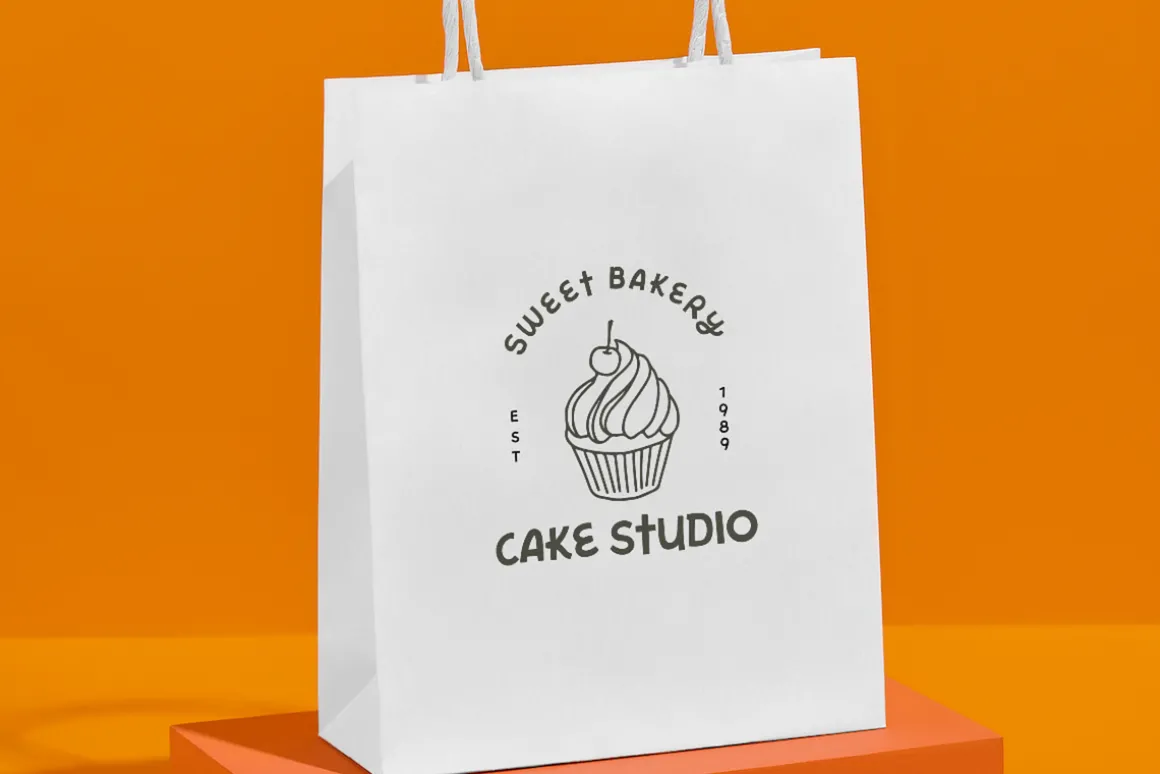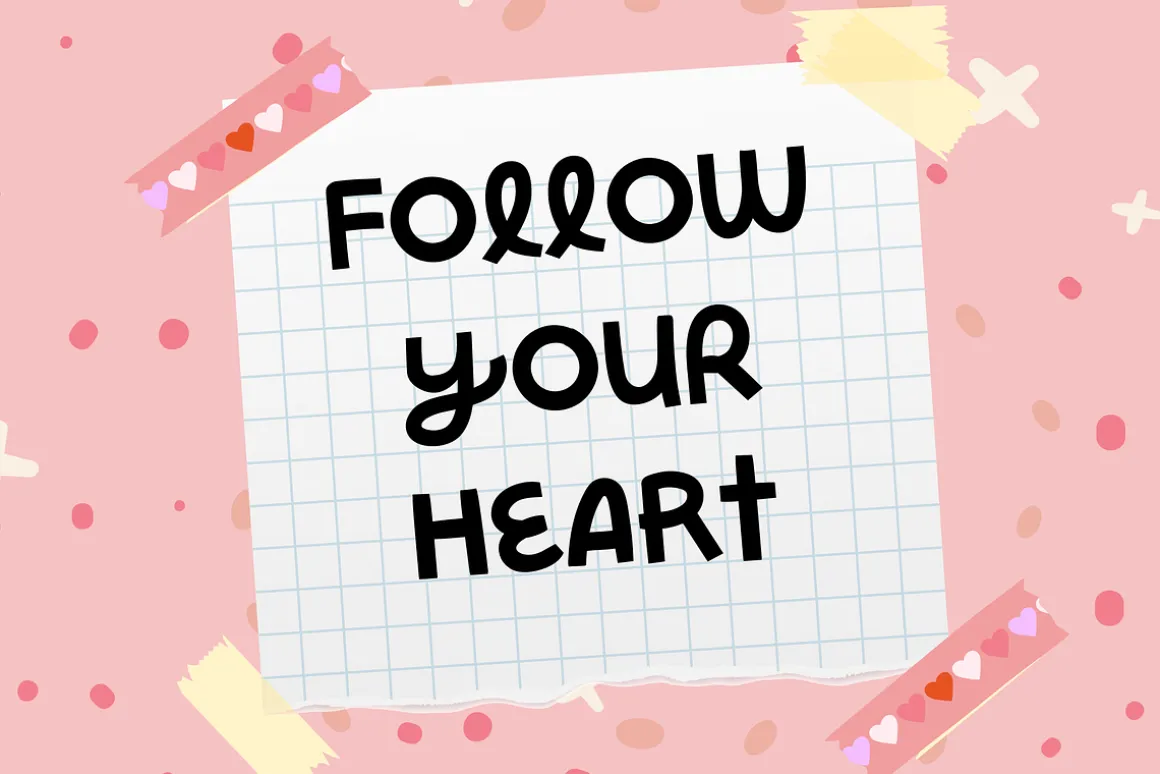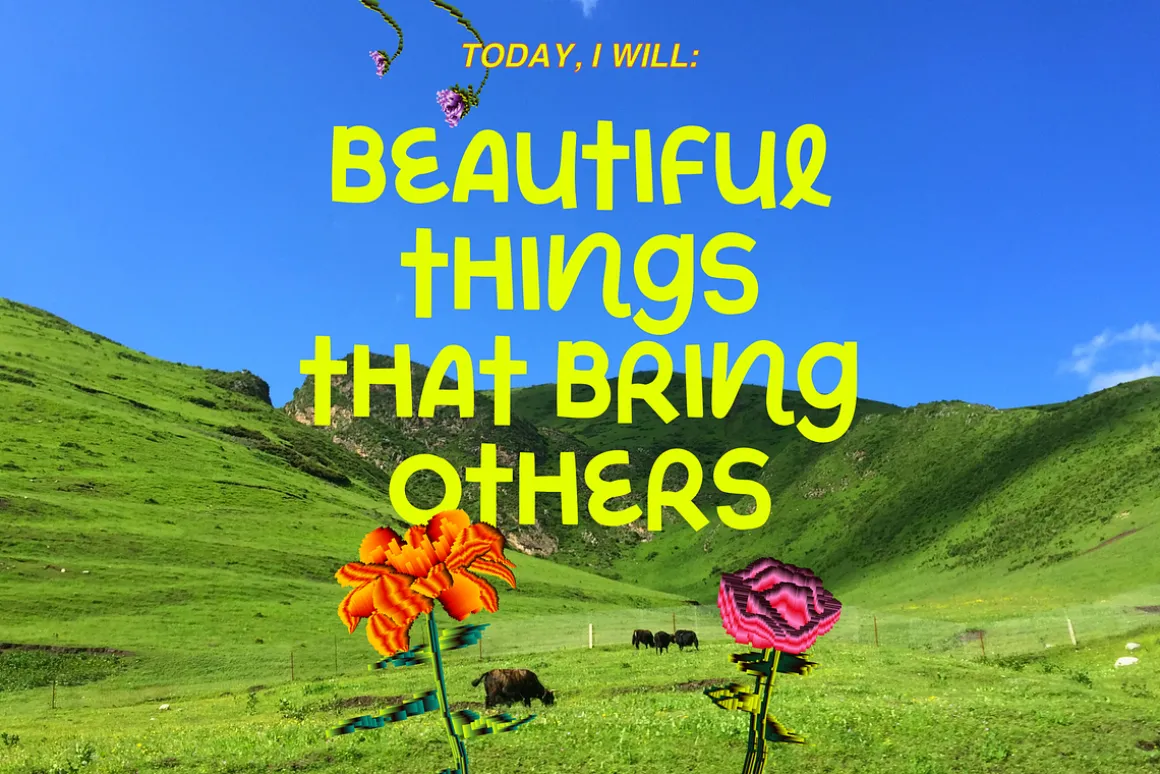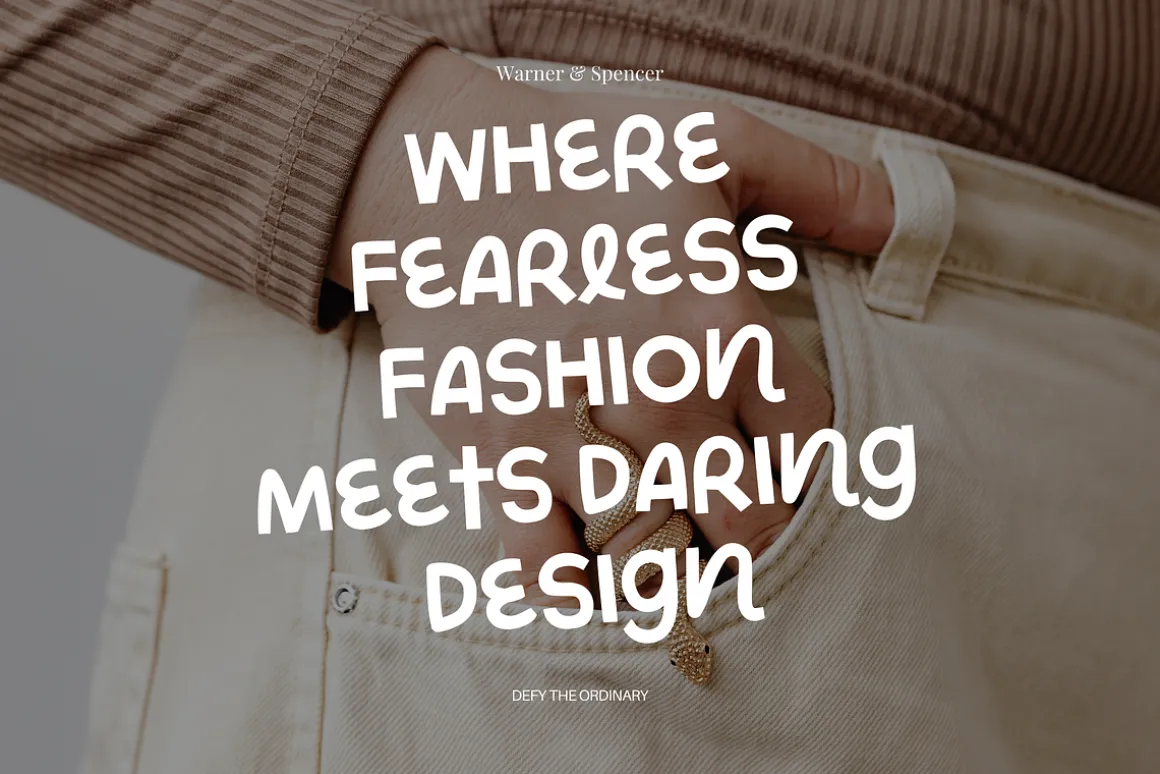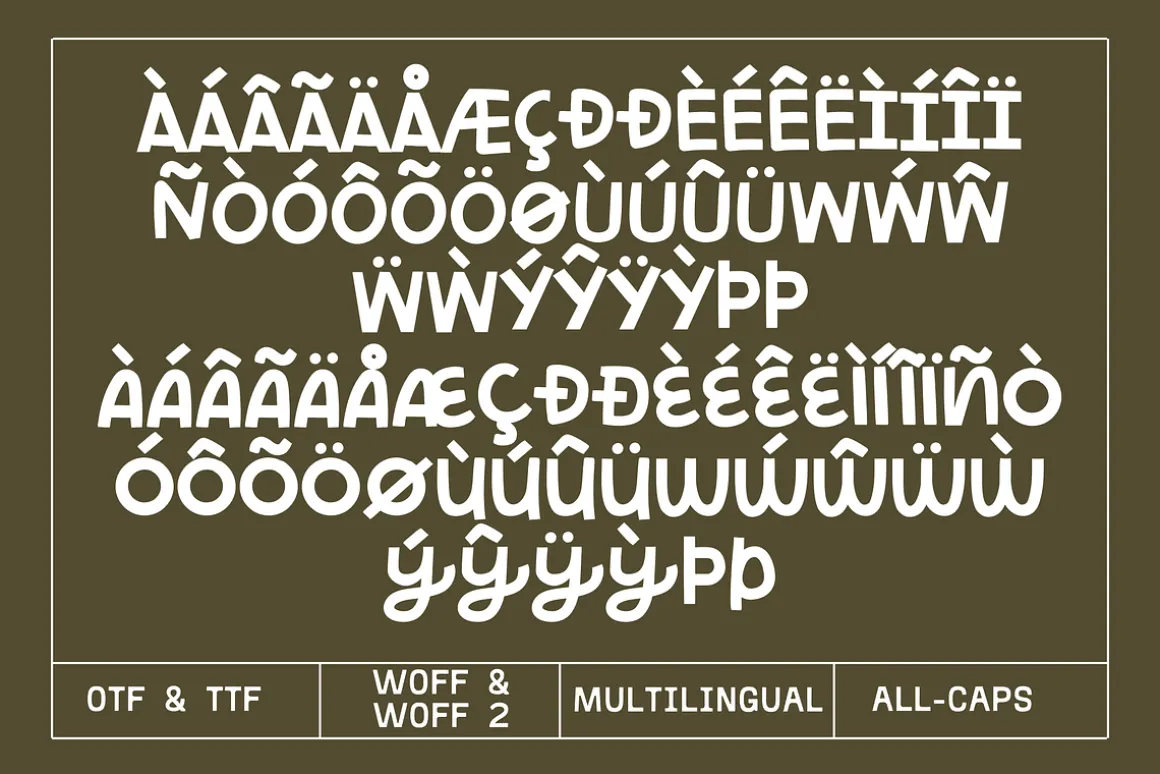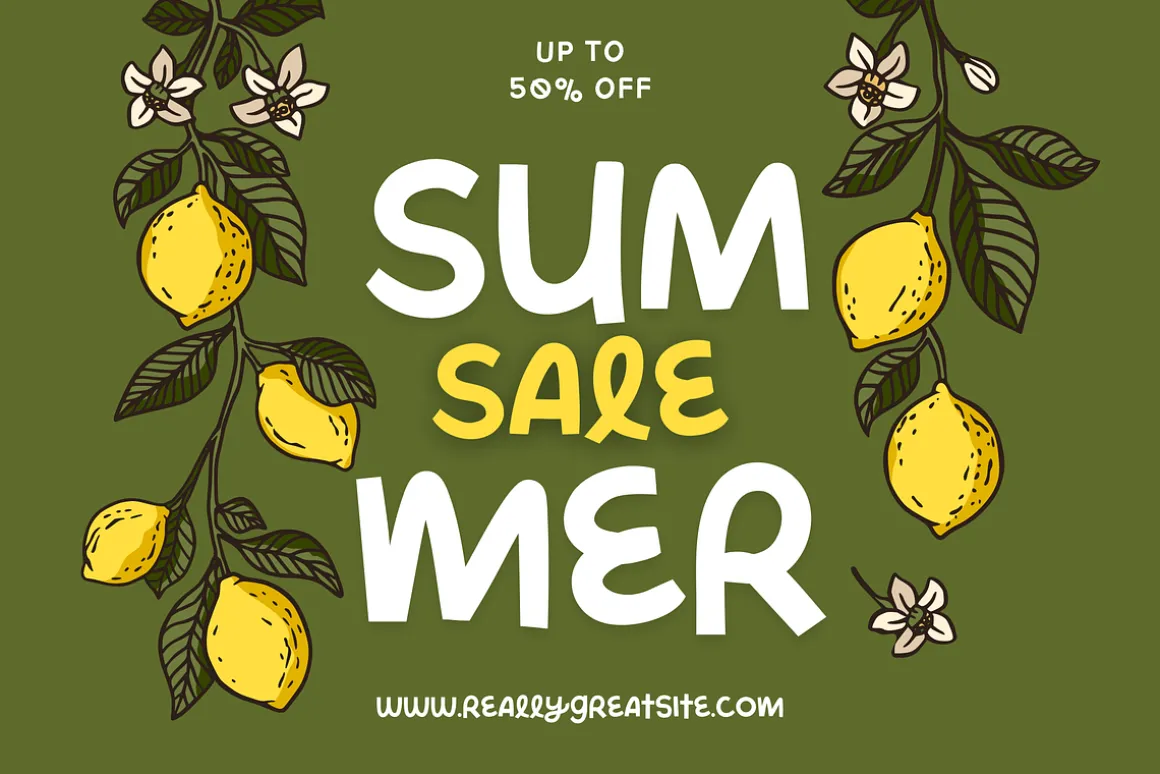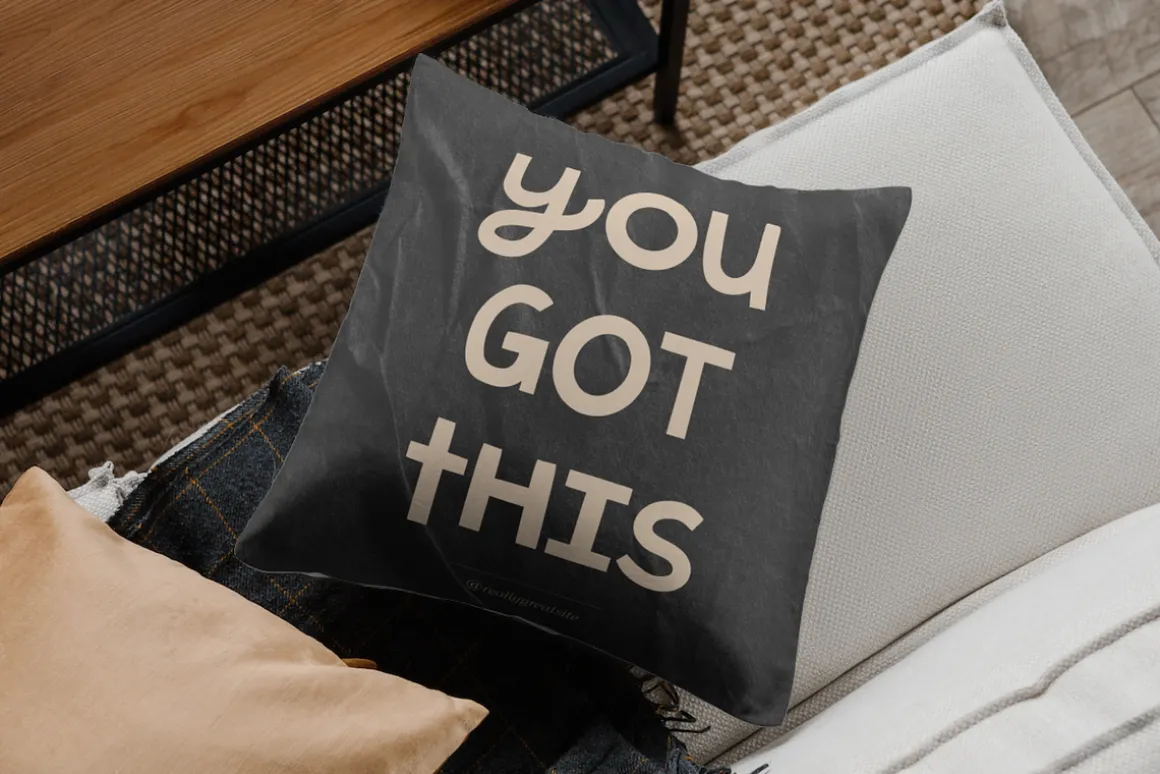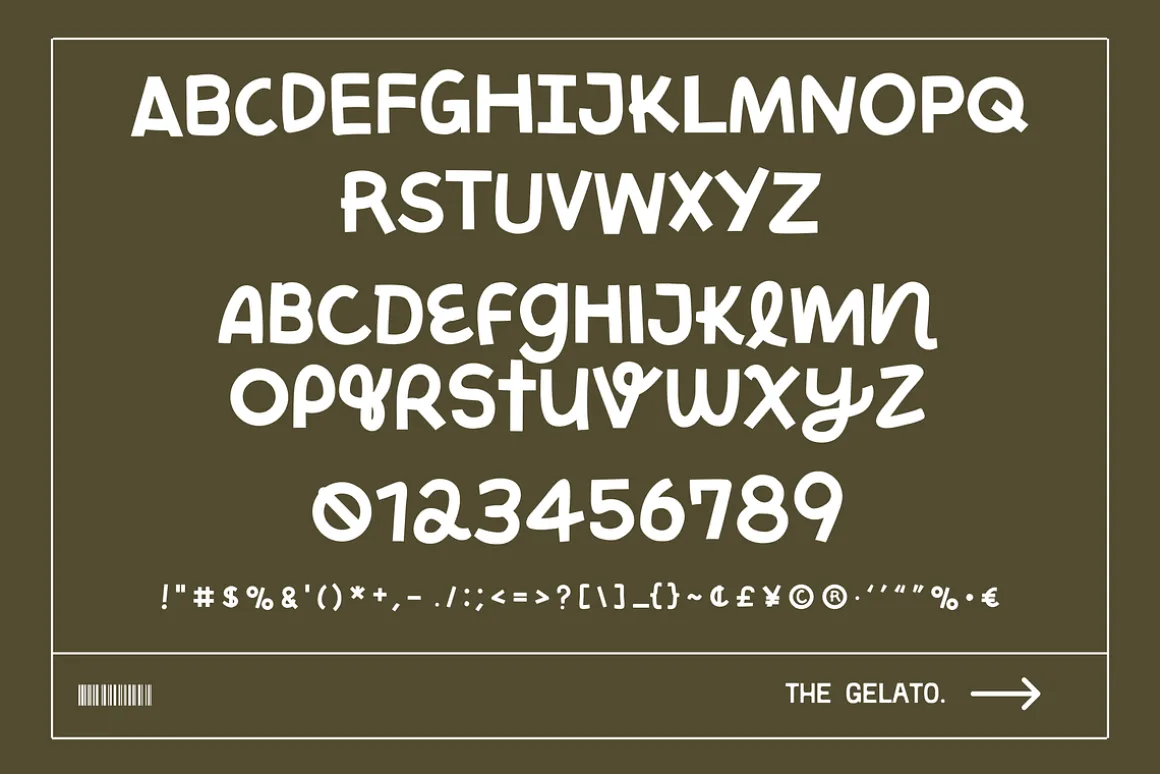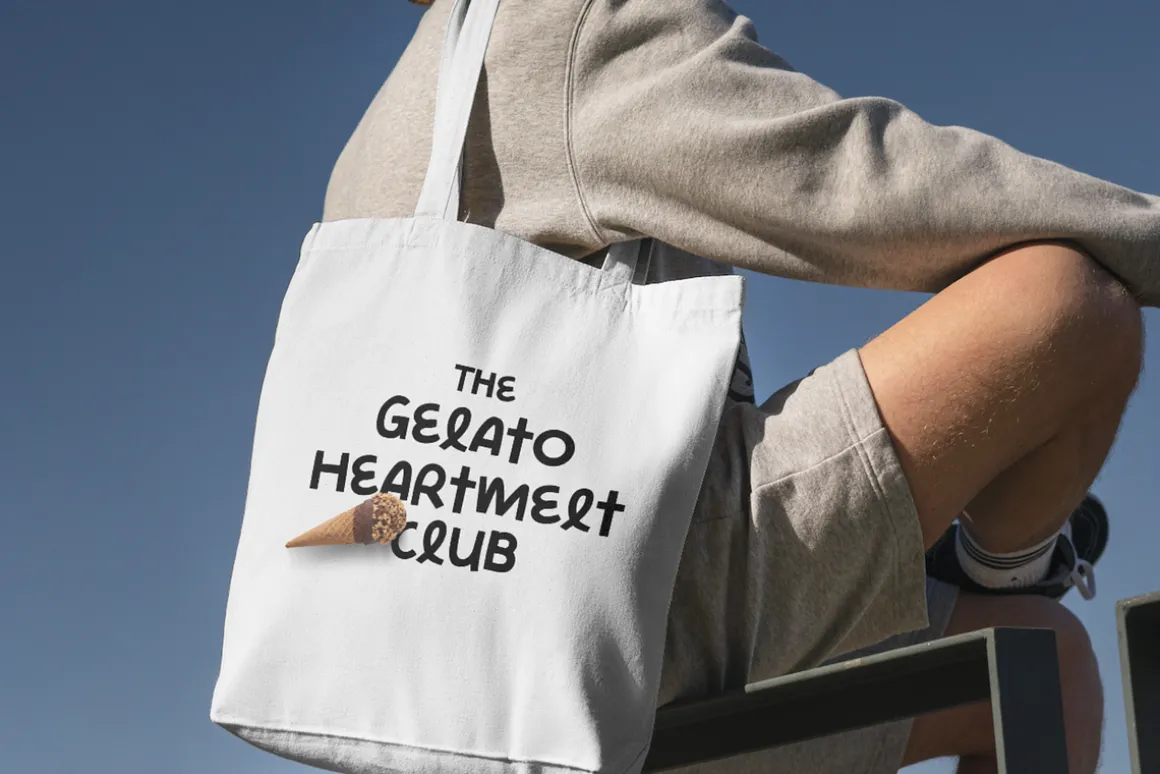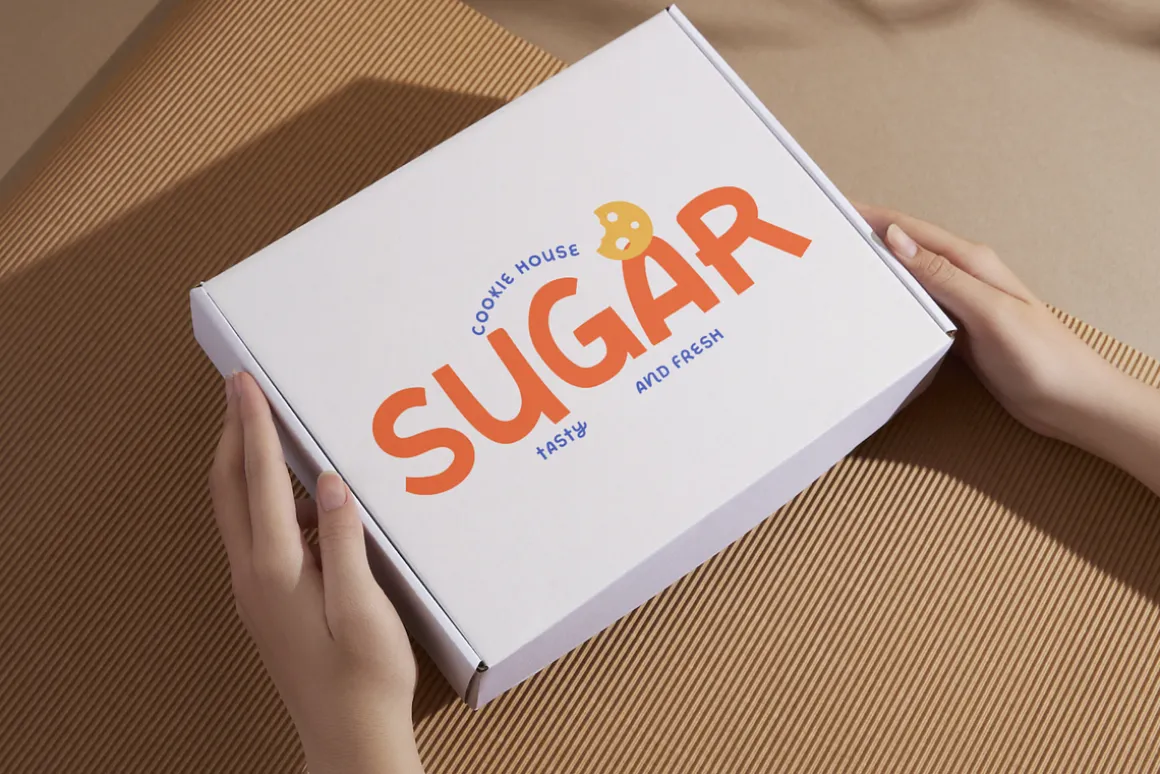
Fresh Farm is a Fun Modern Farmhouse Font that can be used as a Bold Handwritten Font, Adorable Aesthetic Font, Cute Farmhouse Font, Fun Modern Font, Bubbly Canva Font, Playful Crafting Font, or Fresh Brand Font